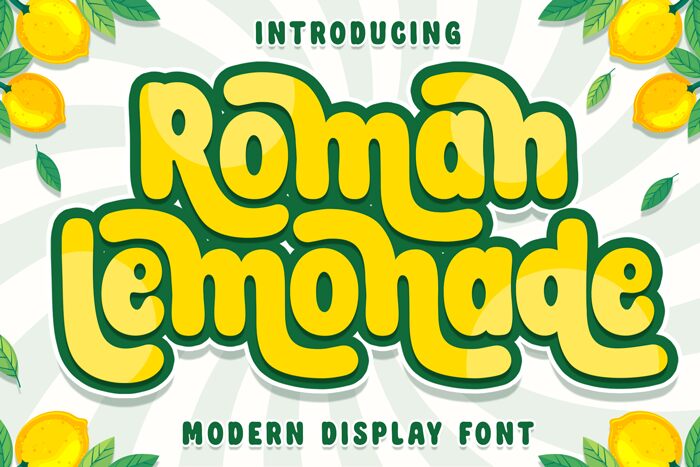
Roman Lemonade, designed by Hoperative, is an exuberant display font that adds a playful touch to any project. With its extra-bold weight and cartoon style, this font is perfect for children's books, birthday invitations, and party decorations. Its vibrant personality brings life to posters, packaging designs, and even video game titles. Whether you're creating a catchy logo or designing eye-catching banners for social media campaigns, Roman Lemonade will make your content stand out with its unique charm and attention-grabbing appeal. Let your creativity flow with this delightful typeface!
Roman Lemonade